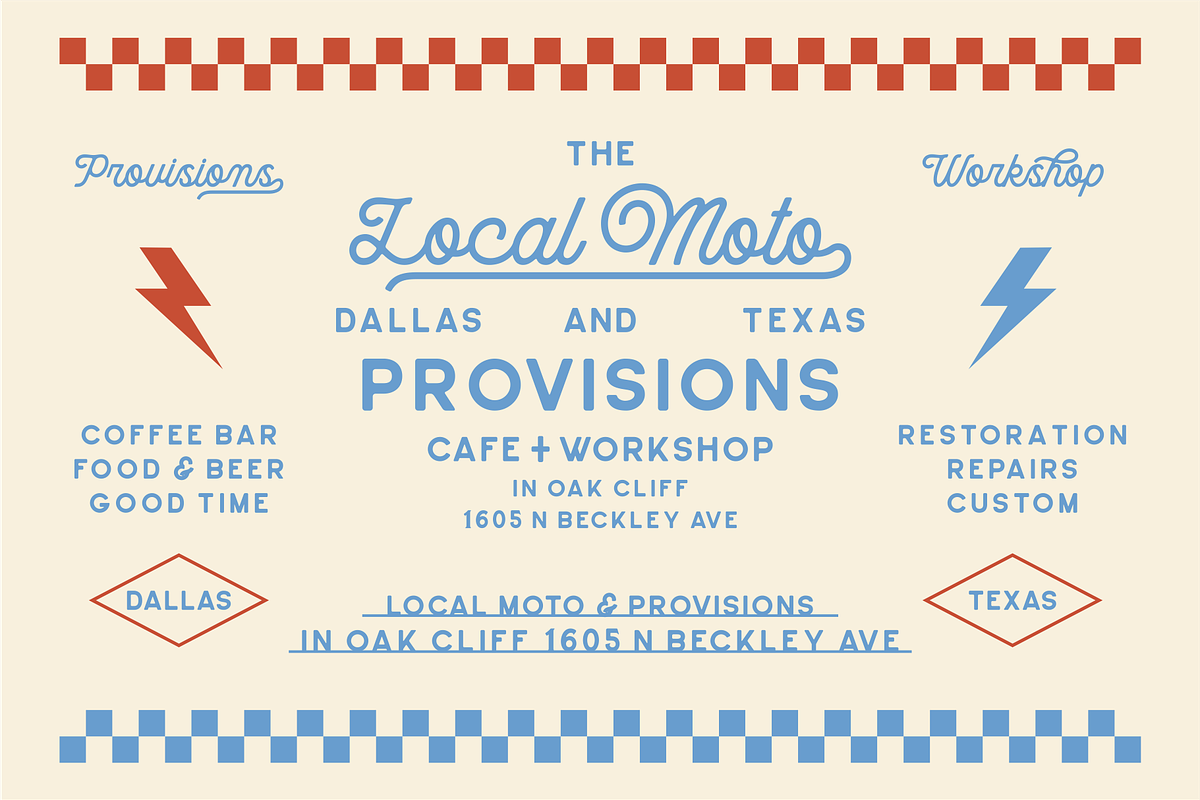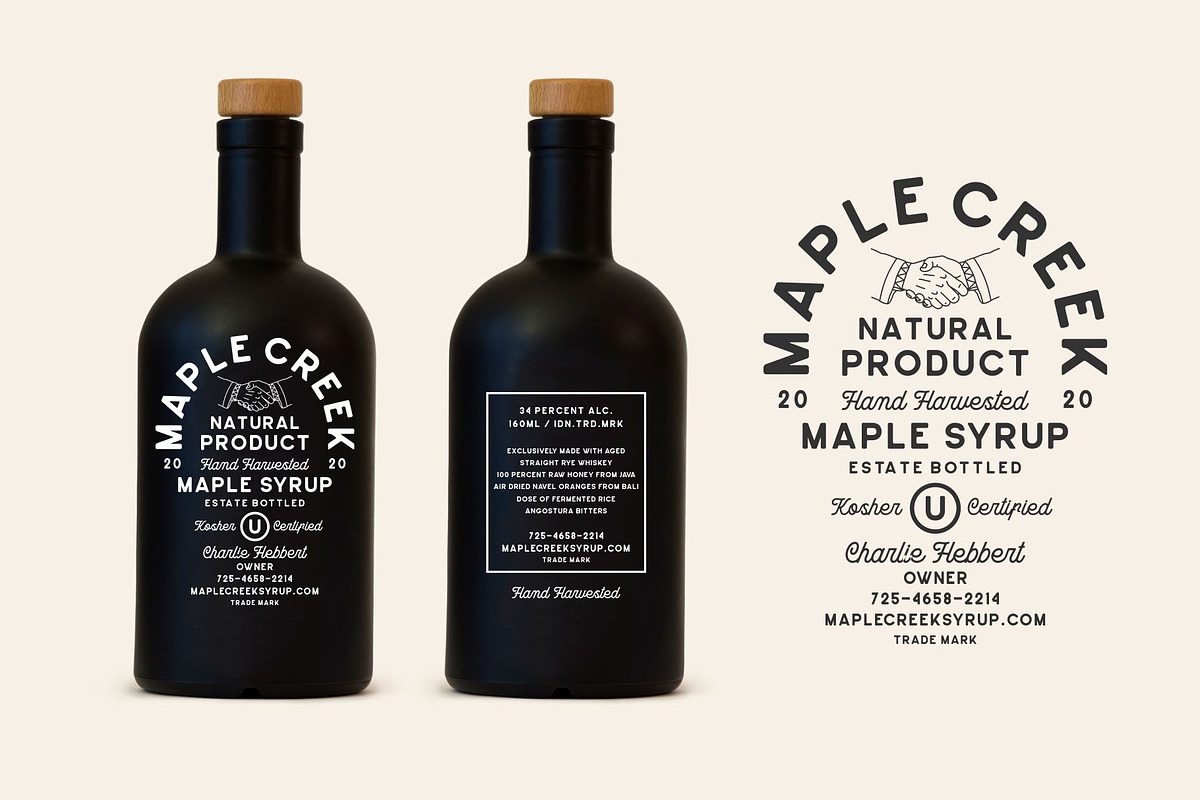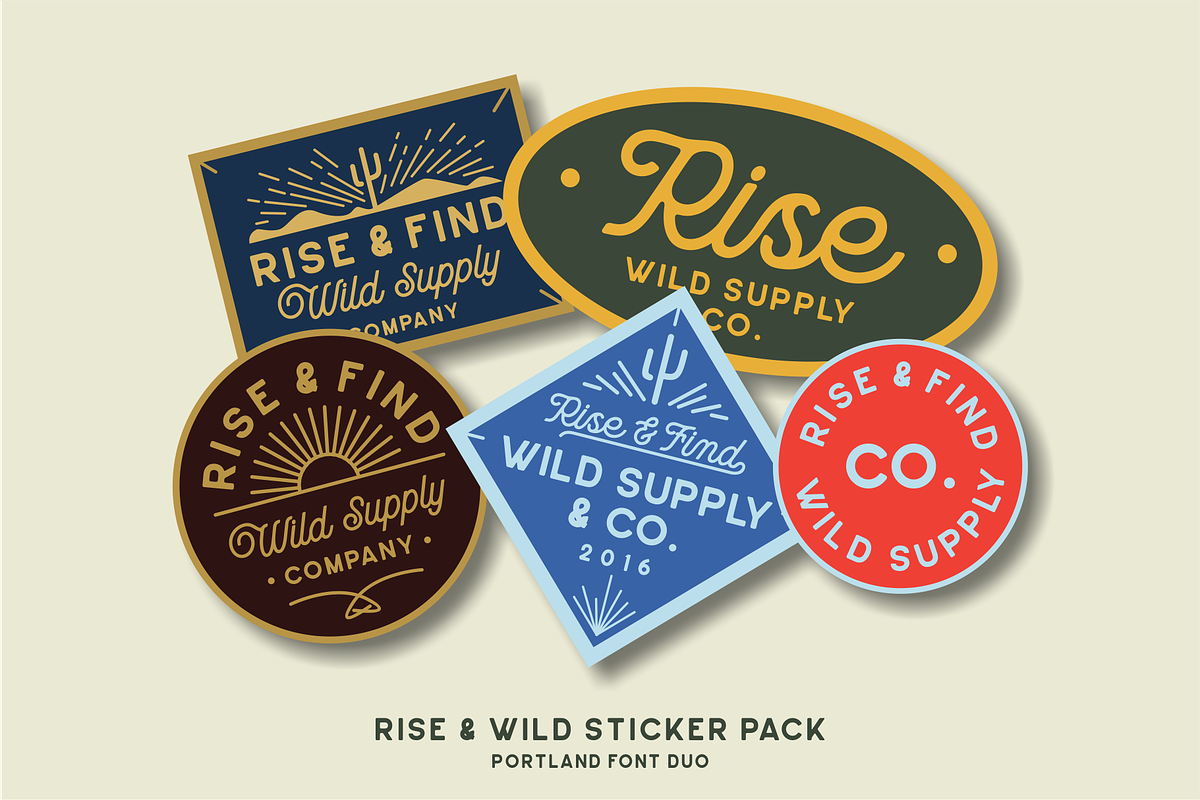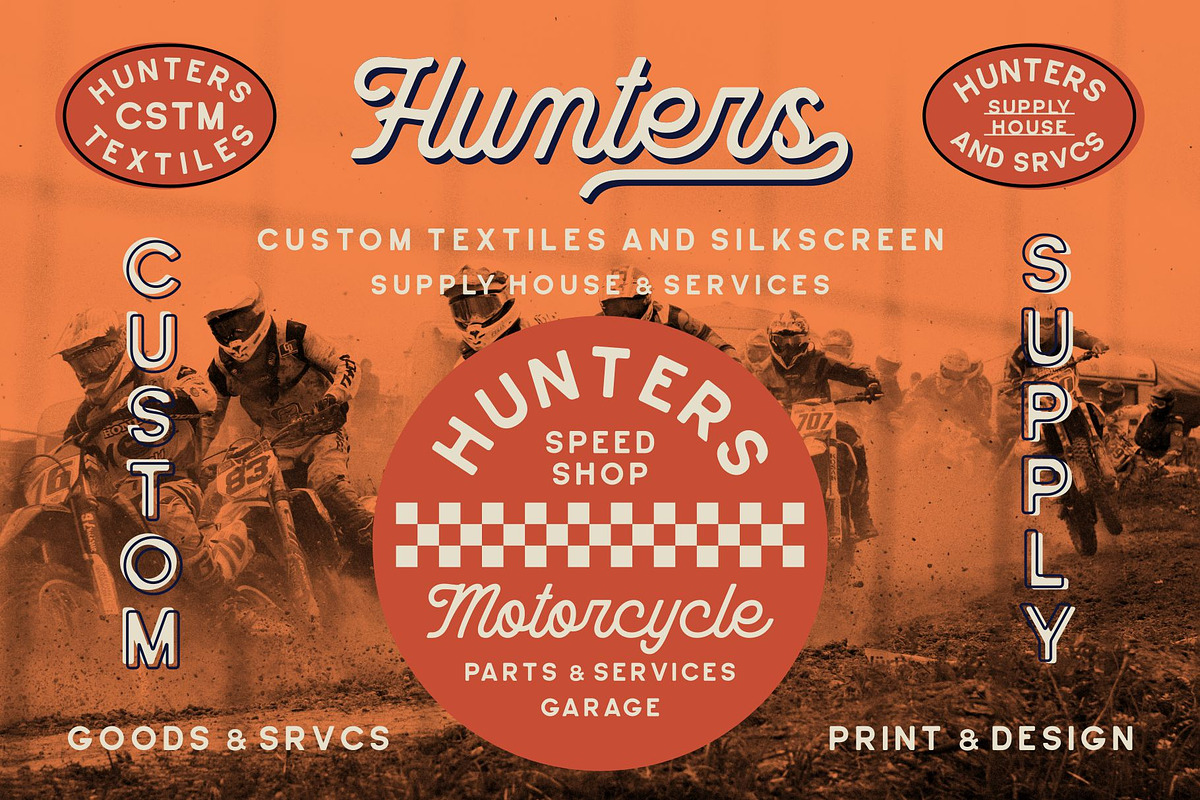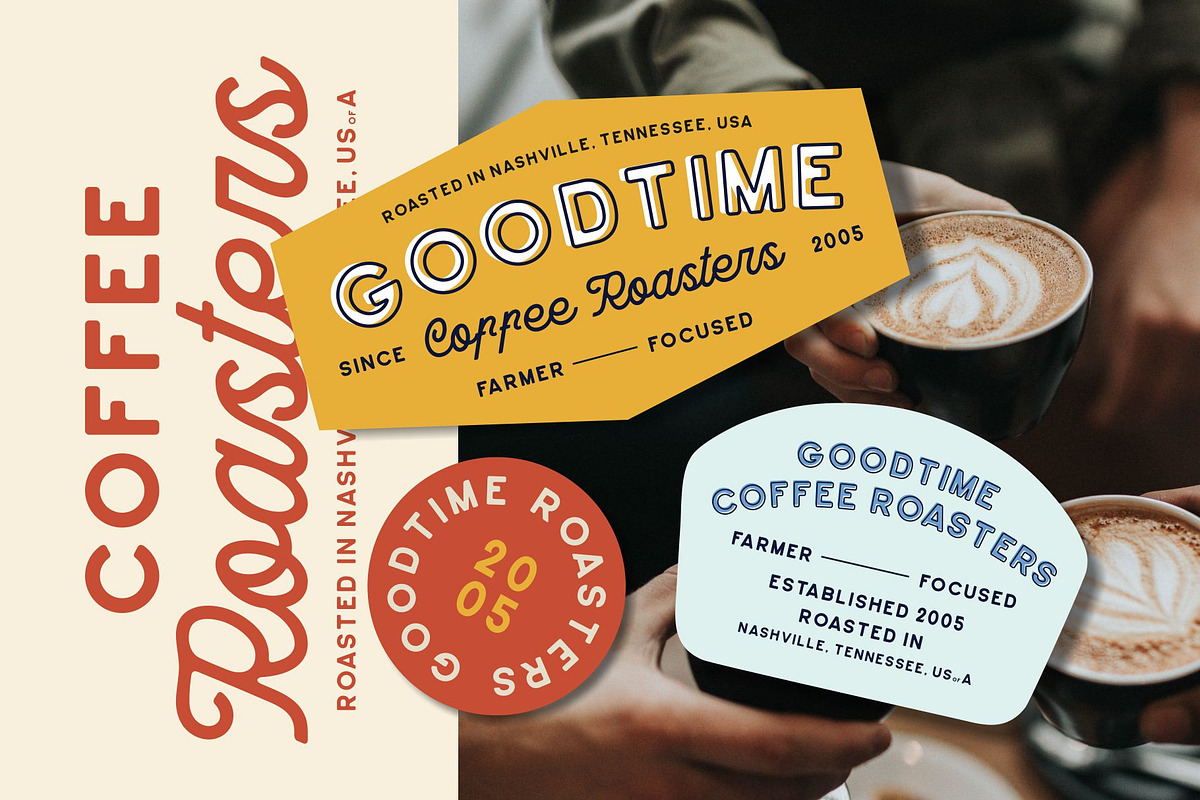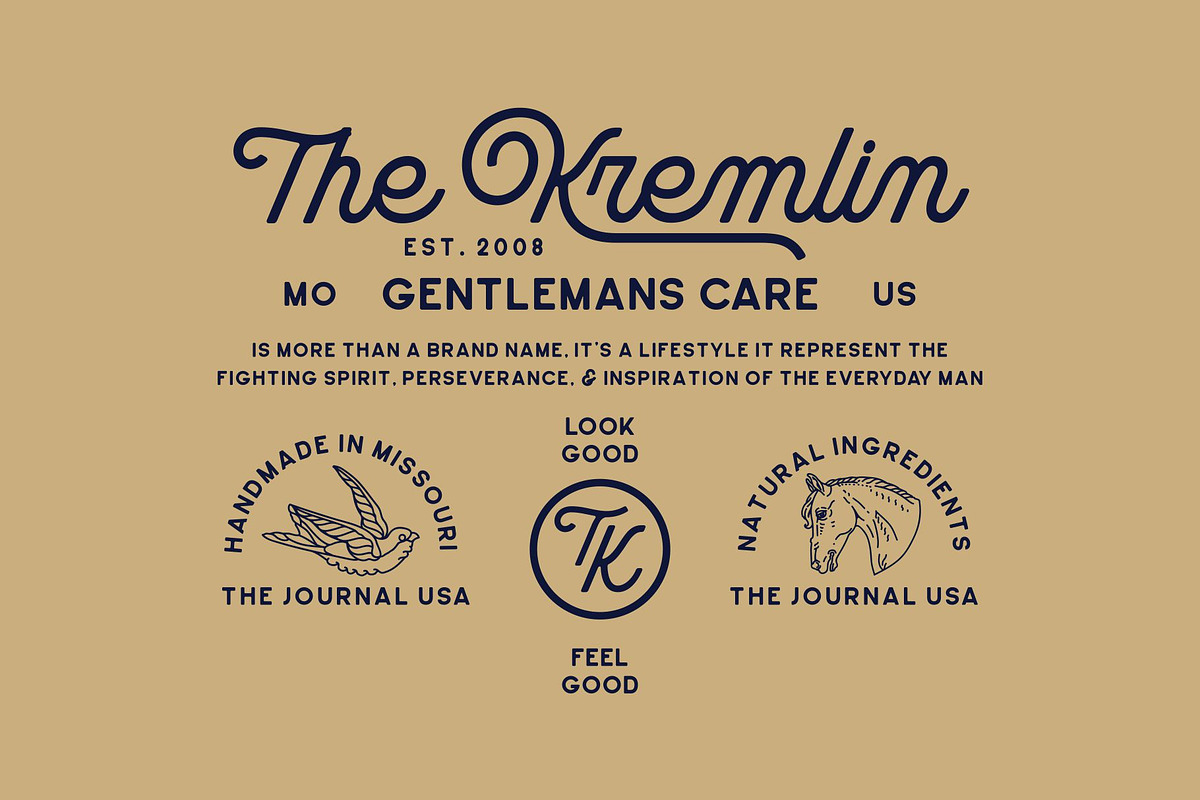
Portland Font Duo
PRESENTING PORTLAND FONT DUO
PORTLAND FONT DUO is handmade vintage script monoline and sans-serif inspired by classic western culture and combining with vintage touch. These two fonts would be perfect to combine in your design, especially on vintage design. This fonts are great for logotype, badges, clothing, poster, and much more. This fonts comes with opentype and truetype features also multilingual support and so many alternative style to improve your design.
Uppercase and lowercase character (only uppercase for sans-serif)
Numeral, Punctuation and Symbol
- This fonts comes with opentype and truetype features also multilingual support and so many alternative style to improve your design.
- Features Uppercase and lowercase character (only uppercase for sans-serif) Numeral, Punctuation and Symbol Stylistic Alternates Multilingual
- Portland Monoline Script Regular
- Portland Sans Serif Regular